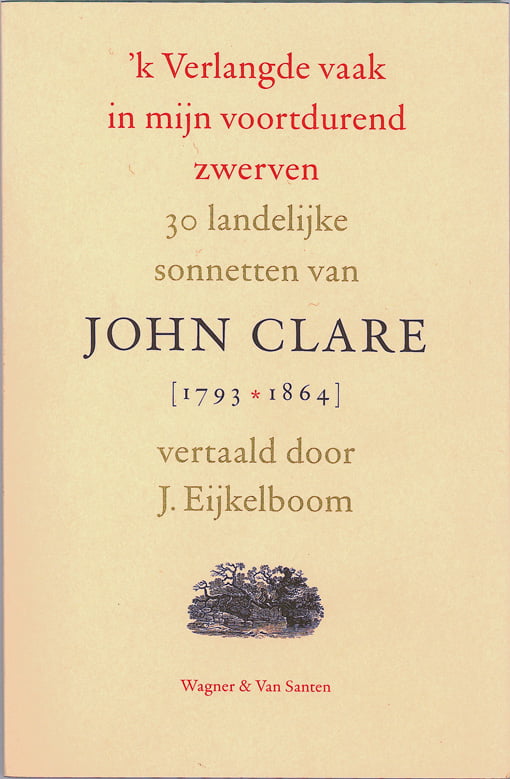
![]() Laurens Janszoon Coster (1405–1484) | The Dutch Type Library (dtl) is developer and publisher of exclusive high-quality digital typefaces and a producer of professional software for the font production, for example dtl FontMaster. Established in the spring of 1990, it was the first of its kind in the Netherlands and it operates on an international basis ever since. dtl was founded by the type designer, researcher, and Senior Lecturer Dr. Frank E. Blokland. | ||||||||||||||||||||||||||
During the seventeenth century, the Netherlands were the centre of the typographic world. The Dutch typefaces of the Golden Age introduced something new. Stanley Morison wrote about this in On Type Designs, Past and Present (London, 1925): ‘The importance of the Dutch revision was that it created a letter that was big on the body as well as stronger in colour than the sixteenth-century old face.’ | |||||||||||||||||||||||||||
The best-known Dutch punchcutter from the Golden Age is Christopher van Dijck, whose designs were employed successfully by the famous Elzevir publishing firm in Leiden. In the twentieth century, the Netherlands gave us such famous type designers as Sjoerd H. de Roos (dtl Nobel, Zilvertype), Jan van Krimpen (dtl Haarlemmer, dtl Romulus, dtl Sheldon), Chris Brand (dtl Albertina) and Gerard Unger (Demos, Swift, dtl Argo). | |||||||||||||||||||||||||||
The Dutch Type Library continues the tradition of its illustrious predecessing Dutch type foundries by producing and publishing exclusive typefaces of the highest possible quality. This standard not only applies to the type designs but to their digital descriptions as well. | |||||||||||||||||||||||||||
![]() dtl VandenKeere | |||||||||||||||||||||||||||